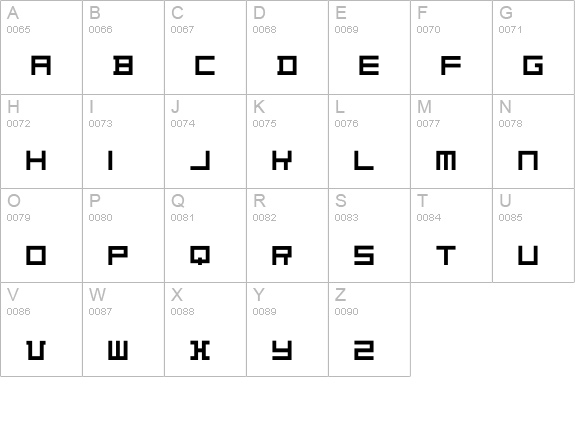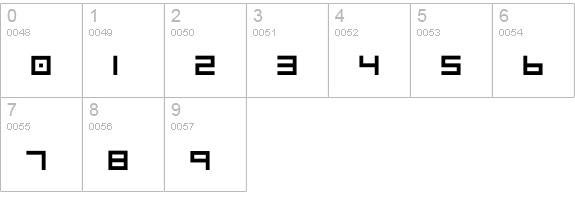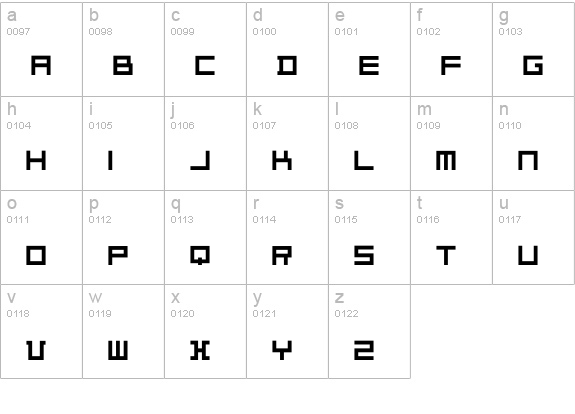
DeStijl-Regular is the standard, neutral variant in the DeStijl typeface family \xE2\x80\x94 well suited to general body text, paragraphs, and standard typographic work.
DeStijl-Regular font is a sleek and modern typeface that exudes simplicity and sophistication. Its clean lines and sharp edges make it perfect for a variety of design projects, from branding to editorial layouts. The balanced letterforms and consistent spacing ensure readability and visual appeal. One of the best things about DeStijl-Regular font is that it is free to download at FontsMarket.com. This means that you can easily access this versatile typeface without any cost, making it a great choice for designers on a budget or anyone looking to add a touch of elegance to their work. Don't miss out on the opportunity to enhance your designs with the timeless style of DeStijl-Regular font. Download it today and elevate your projects to the next level!